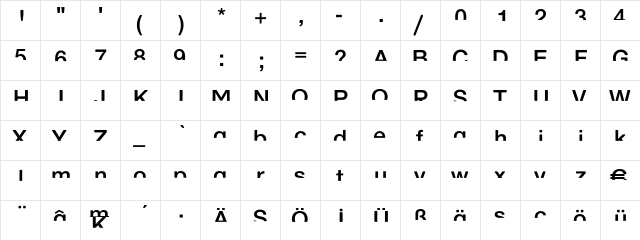
AreHalfsEnough Regular
Design Context for AreHalfsEnough Typeface
AreHalfsEnough is a composed and adaptable typeface that performs quietly and consistently across a wide range of design contexts.